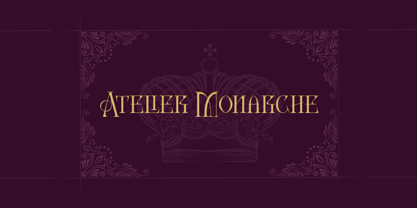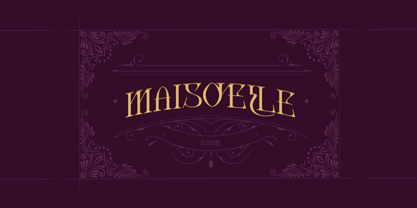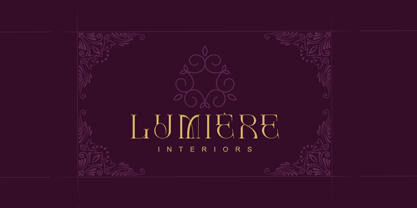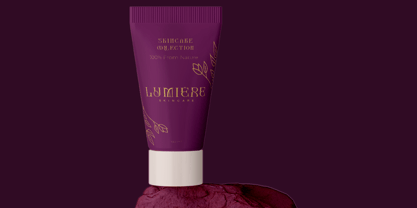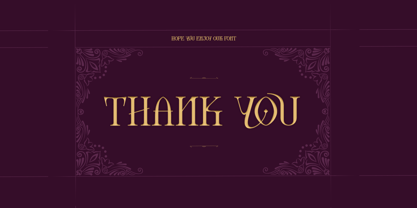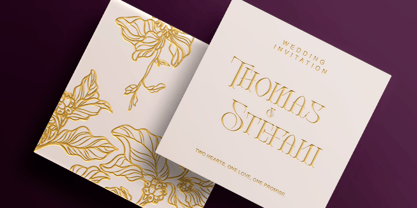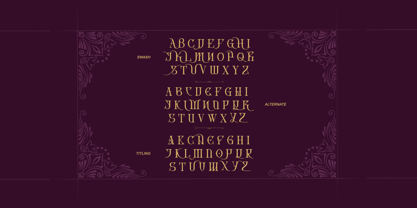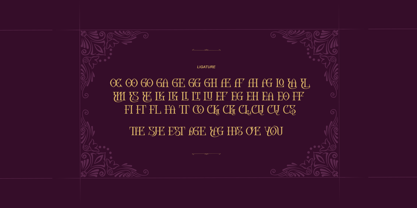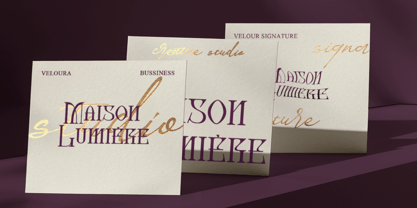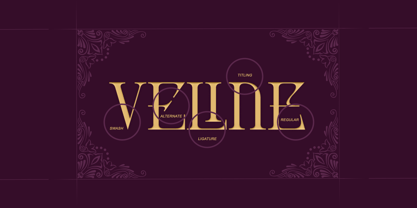
Monvele
by Letterara
Monvele is an elegant decorative serif font created for sophisticated branding, luxury packaging, editorial design, and timeless visual identities. Inspired by Art Nouveau, haute couture, and classic typography, Monvele combines graceful curves, refined proportions, and distinctive ornamental details to create a luxurious and memorable appearance.
Its artistic letterforms bring elegance and personality to every composition without sacrificing readability. Monvele is especially suitable for premium logos, fashion branding, beauty and skincare packaging, perfume labels, magazine headlines, boutique identities, restaurant branding, product packaging, and high-end social media designs.